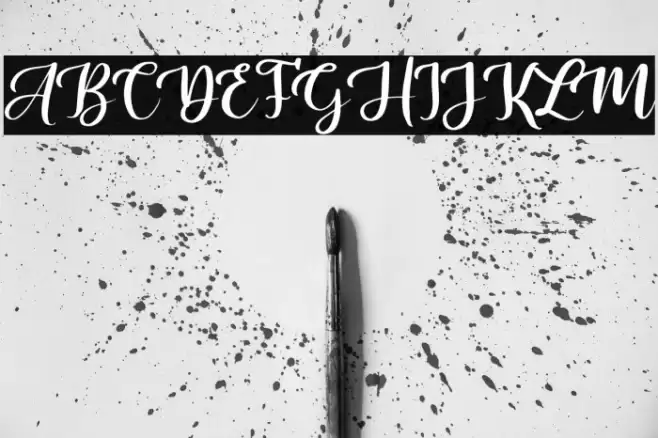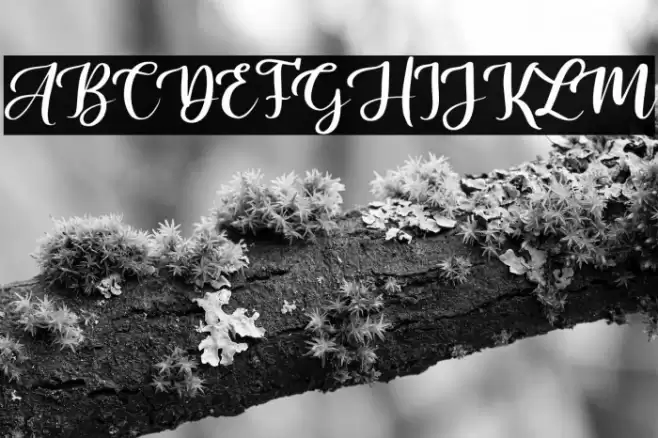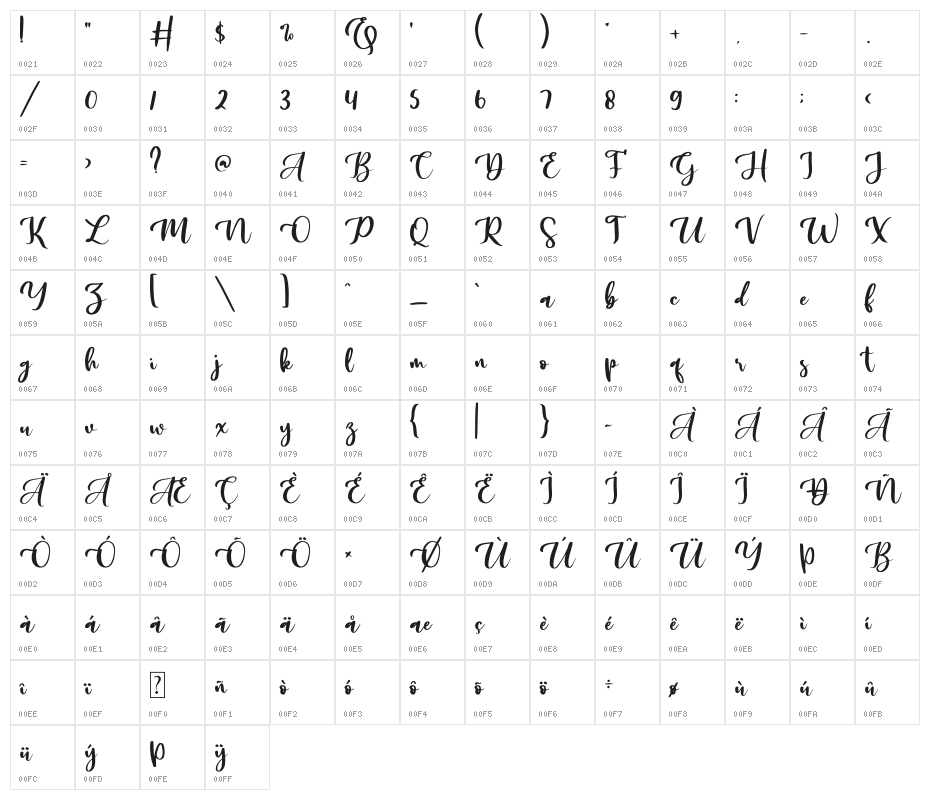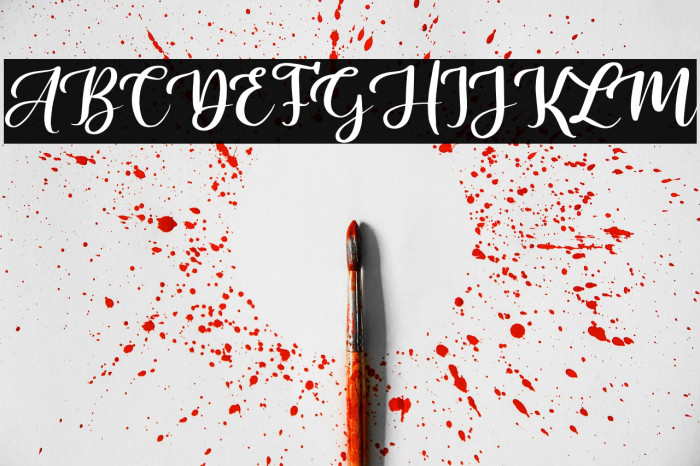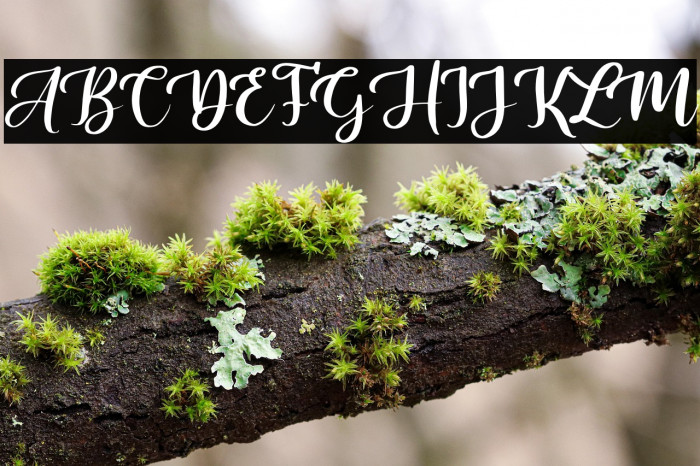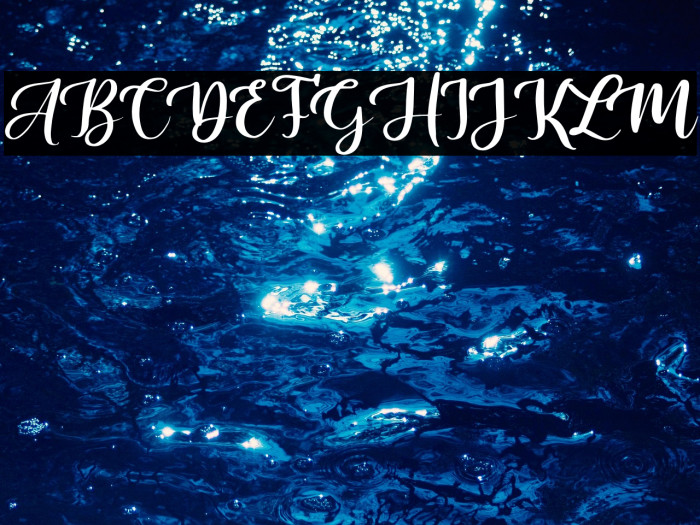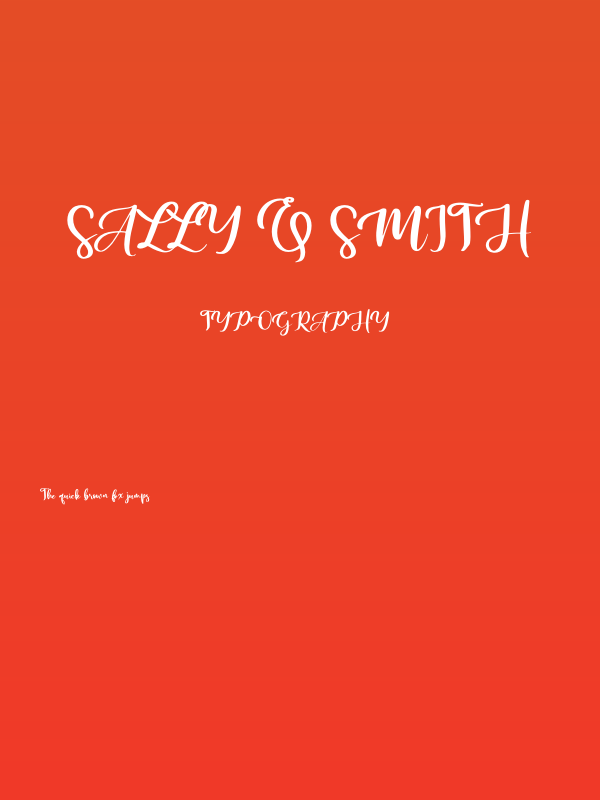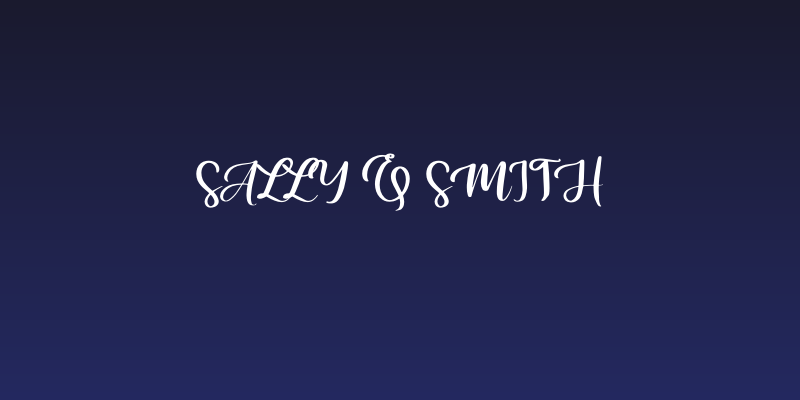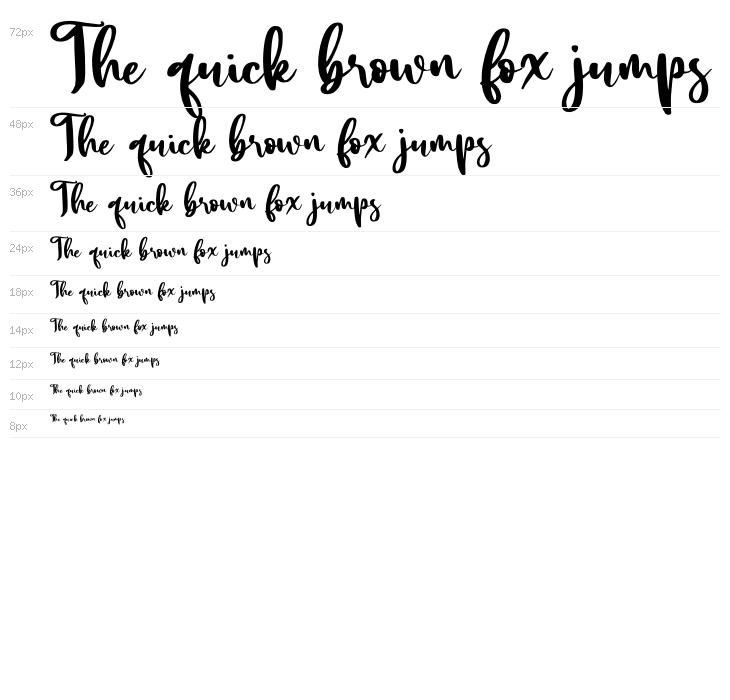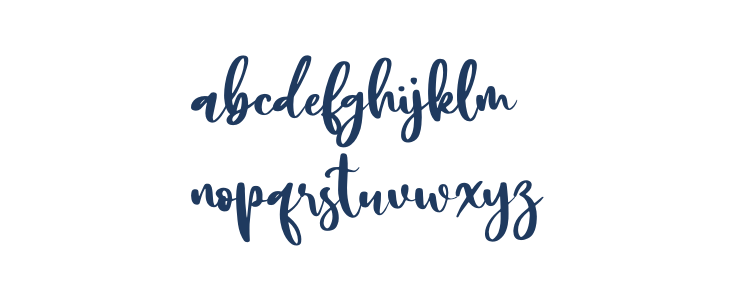
Sally & Smith Font
Sally & Smith Description
This font features a flowing, cursive style with elegant loops and swashes, giving it a handwritten appearance. The uppercase letters are characterized by their dramatic flourishes, while the lowercase letters maintain a consistent, smooth flow. The numbers and special characters complement the overall aesthetic, maintaining the same fluidity and charm. This font exudes a sense of sophistication and creativity, making it ideal for projects that require a personal touch. The strokes are moderately thick, providing good readability while retaining an artistic flair.
A cursive, handwritten-style font with elegant loops and swashes from Uncategorized fonts.
- Font: Sally & Smith